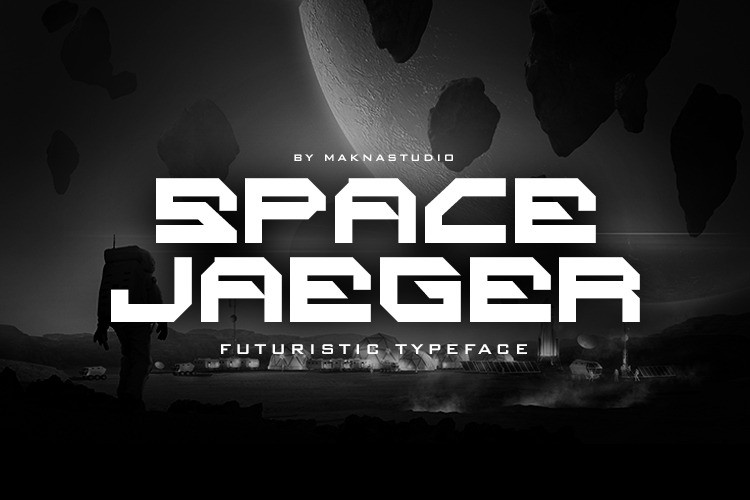
Space Jaeger Font
Space Jaeger Display Font is modern futurisic font, This typeface is perfectly suit for many themes, from a sci-fi movie tittle to your hi-end fashion brand logo Poster,
magazines, brochures,packaging,Websites and Design with themes Futuristic Style, brands that have very strong characteristics, so strong and challenging style.
Uppercase, numbers, punctuations
Opentype features (Stylistic and Contextual alternates, Standart and Discretionary ligatures)